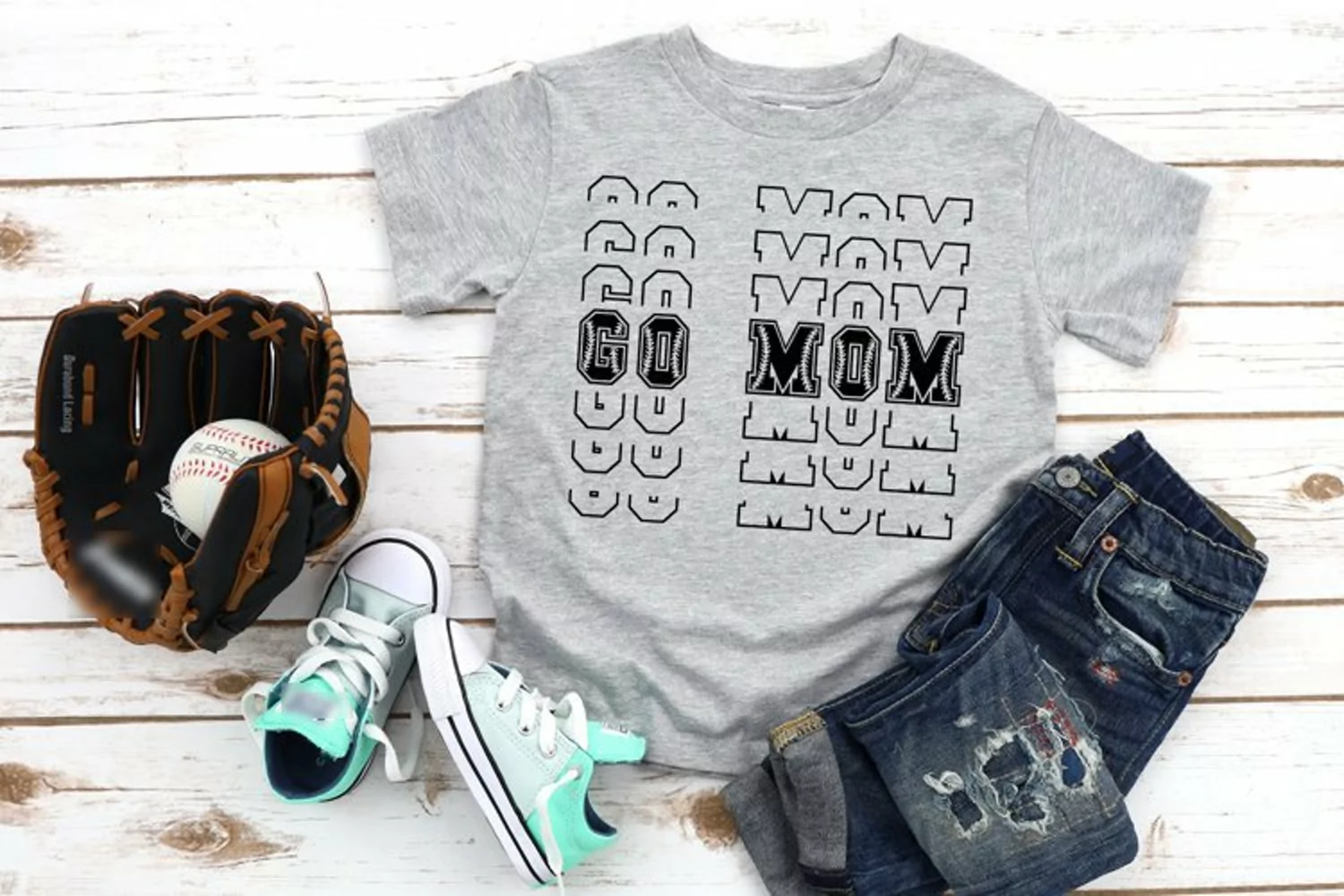
Baseball Stacked Mirror Font With Two Stacking Styles
Since all my previous Sports Fonts and Stacked Fonts had such a demand, I decided to create another stacked mirror font. This one is derived from my Sports Fonts Pack. There are various styles of stacked designs, but I chose these two. I'll call them Regular and Alternate.
Go Sports Baseball V1 is just what it says it is. A stacked baseball font with mirrored outlines above and under the main letter.
Go Sports Baseball V2 is a bit more complex. The second and third row of the mirrored letters is smaller and at a bigger distance from the previous row. This gives this font a different feel, with the letters almost disappearing. Besides the aesthetical part, this version is also a lot easier to read!
Plus, as a bonus, I added the Sport Champs Regular font in case you need a larger variety of sports fonts.
It is a handcrafted font created from scratch, using as little points as possible to ensure you get the best results with minimum difficulty.